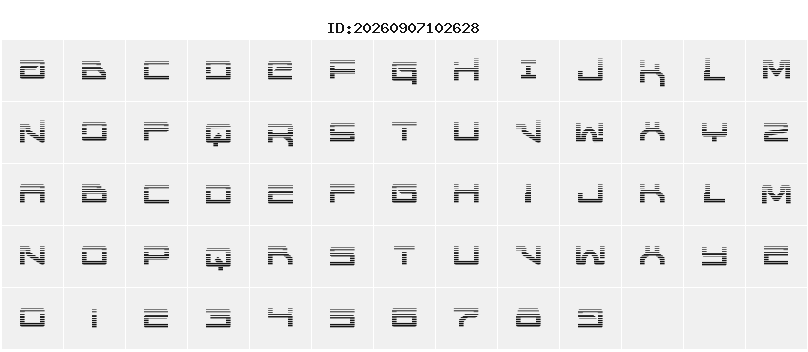
• Font Name: United Planets Gradient
United Planets Gradient.ttf is a modern, elegant sans-serif font designed for ultimate readability and visual harmony. Perfect for branding, headlines, web design, and print materials.